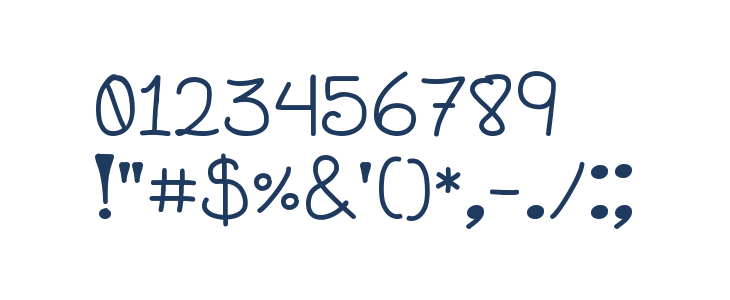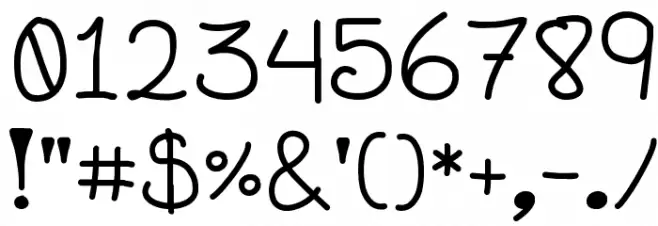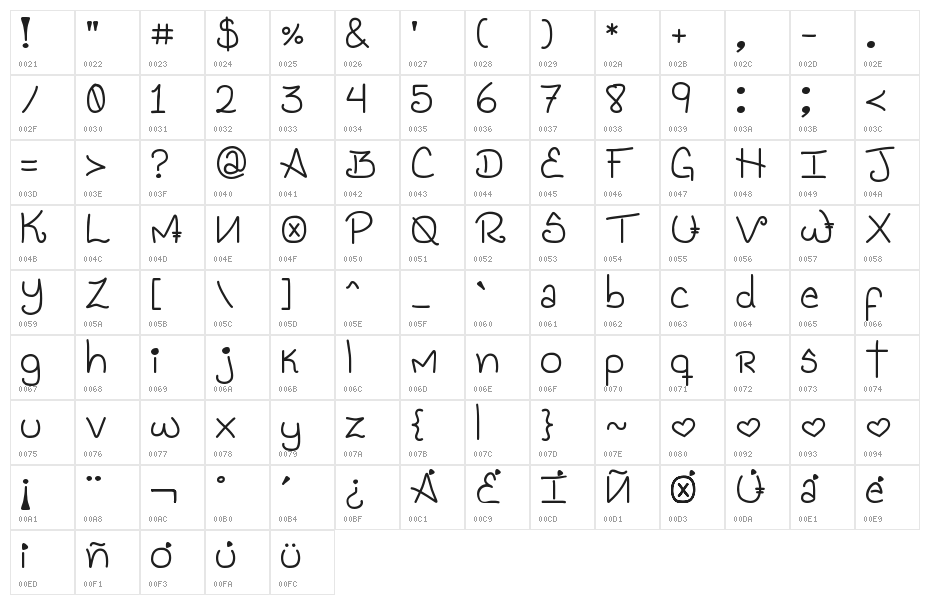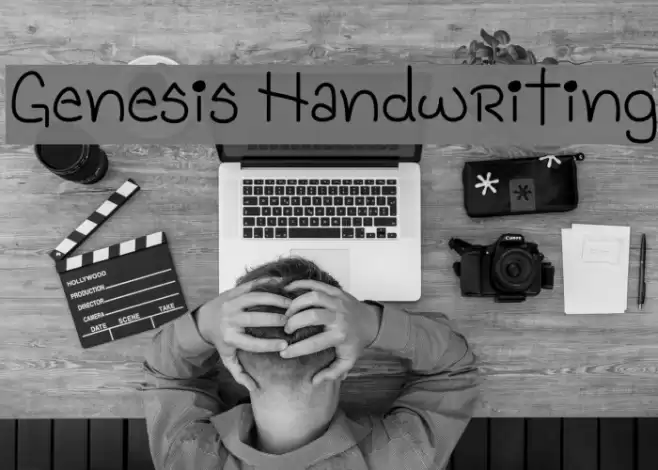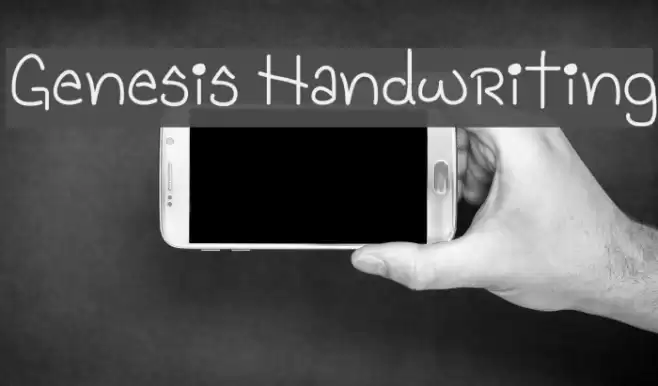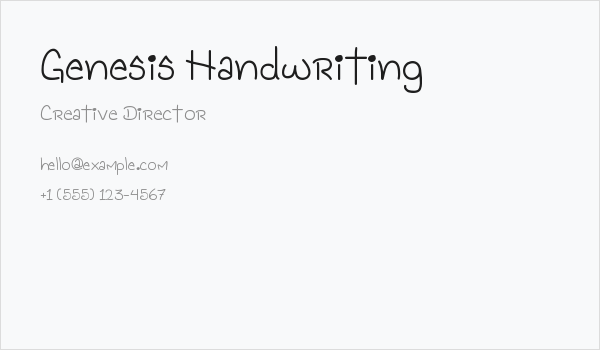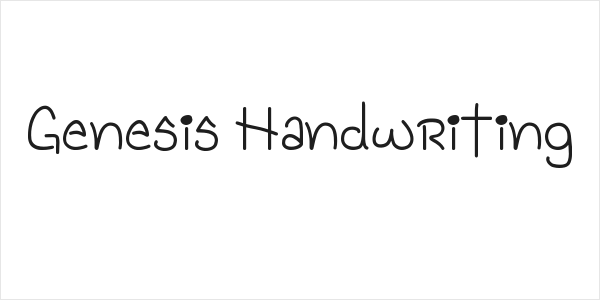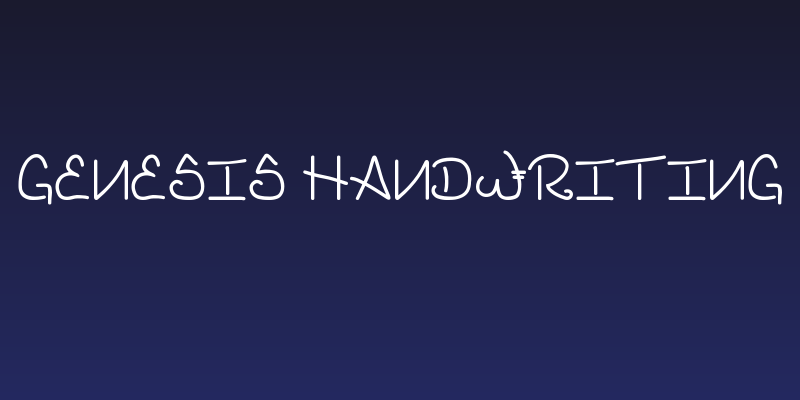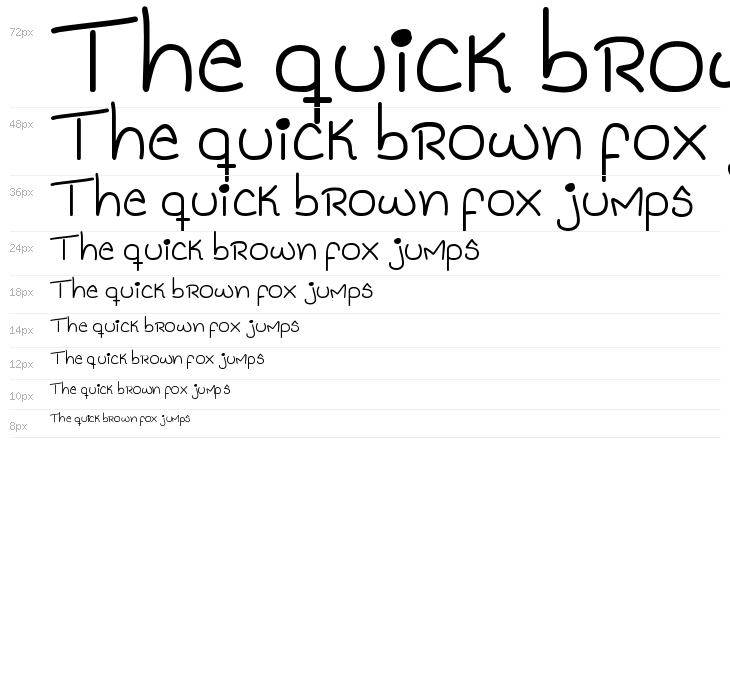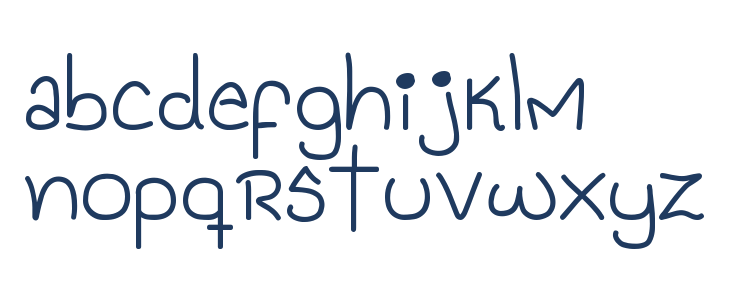
Genesis Handwriting Font
Genesis Handwriting Description
This font features a playful and whimsical design, characterized by its hand-drawn appearance. The letters have a casual, informal style with rounded edges and a slightly uneven baseline, giving it a friendly and approachable feel. The uppercase letters are distinct with unique embellishments, while the lowercase letters maintain a consistent flow. Numbers and special characters are crafted to match the overall aesthetic, making it suitable for creative projects. The font's organic look is reminiscent of handwriting, adding a personal touch to any design.
| Proposed Projects | Ideal for children's books, greeting cards, playful branding, and creative posters. |